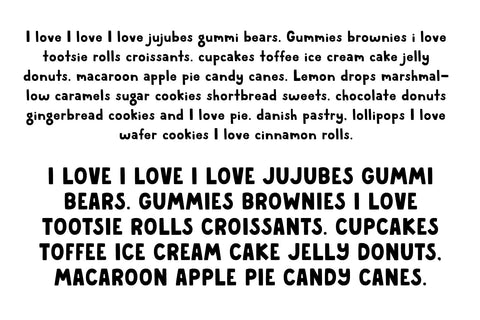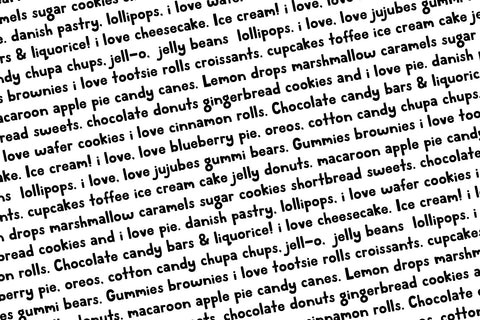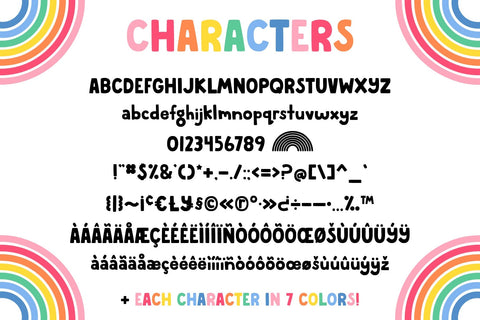
MTF Rainbow SVG Color + Black
Rainbow SVG Color Font + Black is sure to bring happiness and joy to any project with it's playful charming characters! It has 7 different colors included (accessible by alternates) plus black in every letter. It's perfect for posters, t-shirts, home decor, planners, kids projects and so much more!